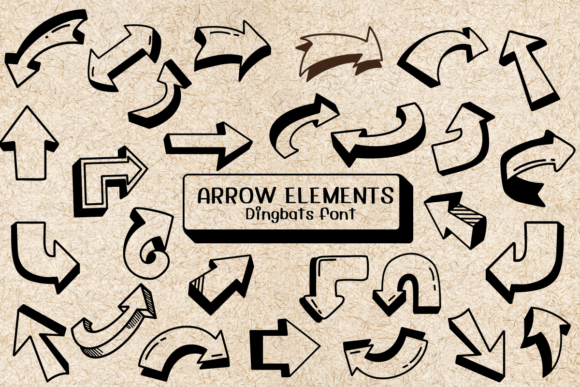
Arrow Elements Font: Elevate Your Creative Projects with Unique Dingbats
Are you looking for a font that can add a touch of creativity and uniqueness to your projects? Look no further than Arrow Elements Font. This dingbats font with an abstract theme is perfect for enhancing your creative projects, such as wedding invitations, DIY crafts, decorations, logos, and many other innovative ideas.
What is Arrow Elements Font?
Arrow Elements Font is a type of dingbats font that features abstract shapes and designs, primarily consisting of arrows, geometric shapes, and other unique elements. This font is not your typical alphabet-based font but rather a collection of symbols and icons that can be used to add visual interest to your projects.
The font’s abstract theme makes it versatile and suitable for various creative applications. Whether you’re designing a wedding invitation, crafting a DIY project, or creating a logo, Arrow Elements Font can help you add a personal touch and make your work stand out.
Features of Arrow Elements Font
Arrow Elements Font comes with a range of features that make it an excellent choice for creative projects. Some of its notable features include:
- Unique and abstract designs: The font features a collection of unique and abstract designs, including arrows, geometric shapes, and other symbols.
- Versatile and adaptable: The font’s abstract theme makes it suitable for various creative applications, from wedding invitations to logos and DIY projects.
- Scalable: The font is scalable, ensuring that it looks great in various sizes and resolutions.
Uses of Arrow Elements Font
Arrow Elements Font is a versatile font that can be used in a wide range of creative projects. Here are some ideas to get you started:
- Wedding invitations: Add a personal touch to your wedding invitations with unique and abstract designs.
- DIY crafts: Use the font to create custom labels, tags, and decorations for your DIY crafts.
- Logos and branding: Create a unique logo or brand identity with Arrow Elements Font.
- Decorations: Use the font to create custom decorations, such as garlands, banners, and signs.
- Social media graphics: Add a creative touch to your social media graphics, such as Facebook posts, Instagram stories, and Twitter headers.
Tips for Using Arrow Elements Font
Here are some tips to help you get the most out of Arrow Elements Font:
- Experiment with different sizes and colors: Play around with different sizes and colors to find the perfect combination for your project.
- Mix and match with other fonts: Combine Arrow Elements Font with other fonts to create a unique and visually appealing design.
- Use it sparingly: Use the font sparingly to avoid overwhelming your design. A little goes a long way.
- Be creative: Don’t be afraid to think outside the box and come up with innovative ways to use the font.
Arrow Elements Font is a unique and versatile dingbats font that can elevate your creative projects. With its abstract theme and range of features, it’s perfect for adding a personal touch to wedding invitations, DIY crafts, logos, decorations, and many other creative ideas. By following the tips outlined above, you can get the most out of this font and create stunning designs that stand out.
- What is Arrow Elements Font?: Arrow Elements Font is a dingbats font with an abstract theme featuring unique shapes and designs.